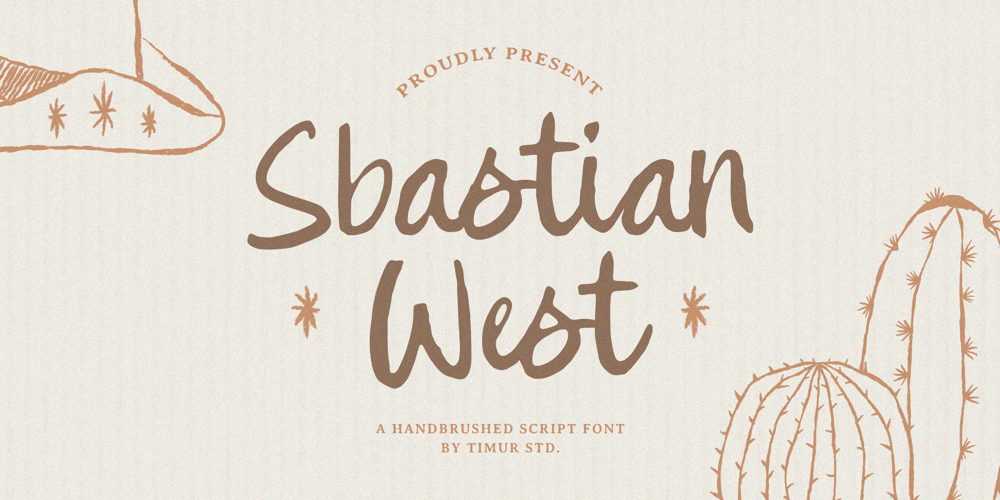
Sbastian West Font Family was designed by Wara Sigit Tri Pamungkas and published by Timurtype. Sbastian West contains 1 styles and family package options. Introduced by Timurtype Studio!Sbastian West is a Handbrushed Script FontThis font is a charming handbrushed script font that exudes a relaxed, artistic flair. Its fluid, flowing lines and expressive strokes create a sense of spontaneity touch, making it perfect for adding a unique, handcrafted feel to invitations, branding, and creative projects. The combination of elegance and casual ease in Sbastian West ensures it stands out while maintaining a warm, approachable vibe.Sbastian West also supports multilingualismEnhance your designs with our original fonts, feel free to comment or provide feedback, Enjoy the fonts 😊Thank You